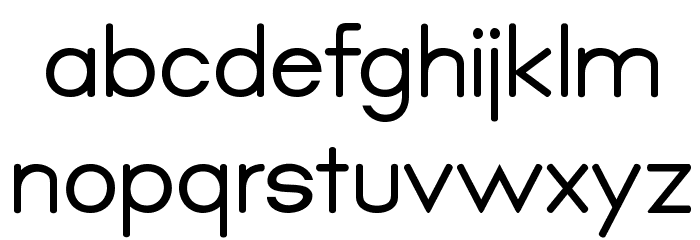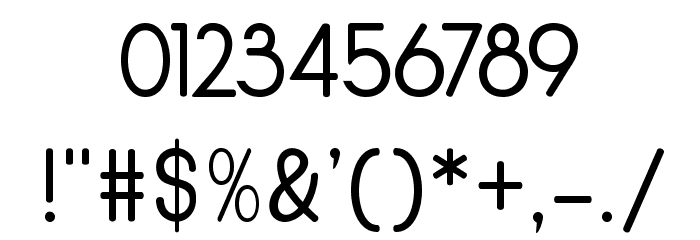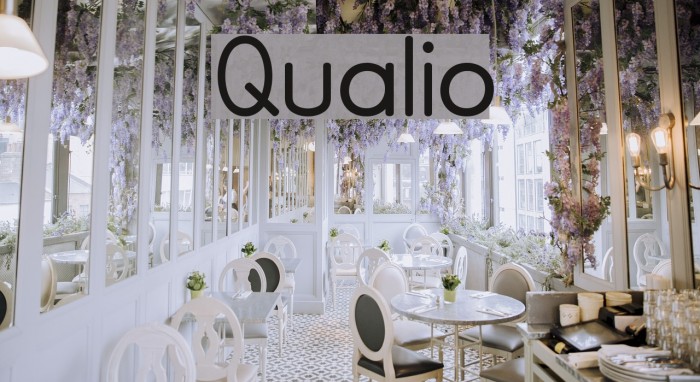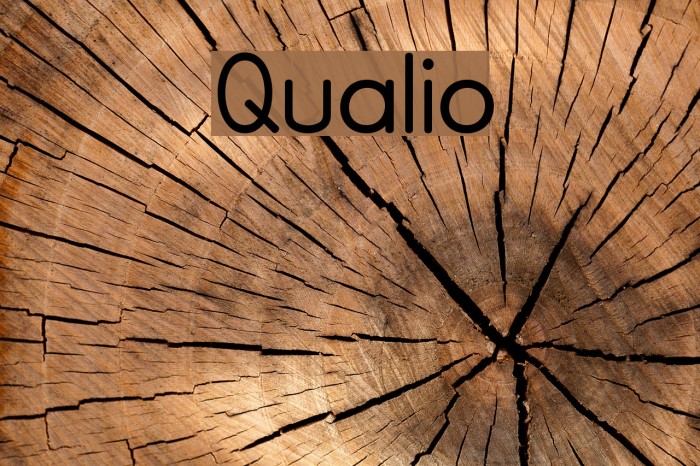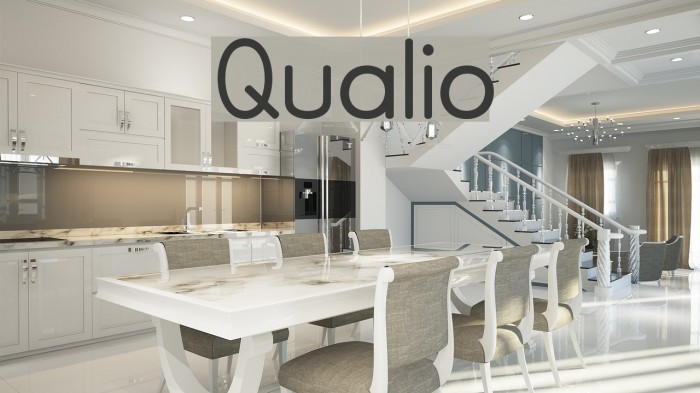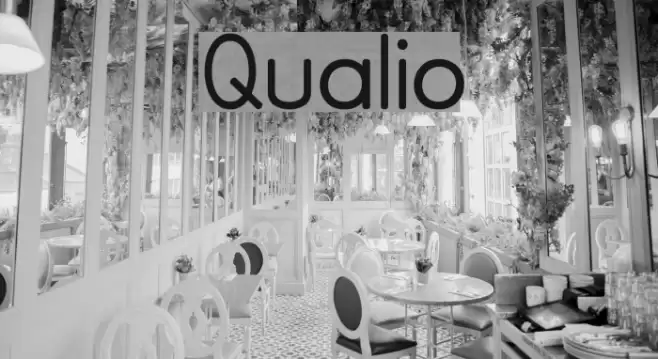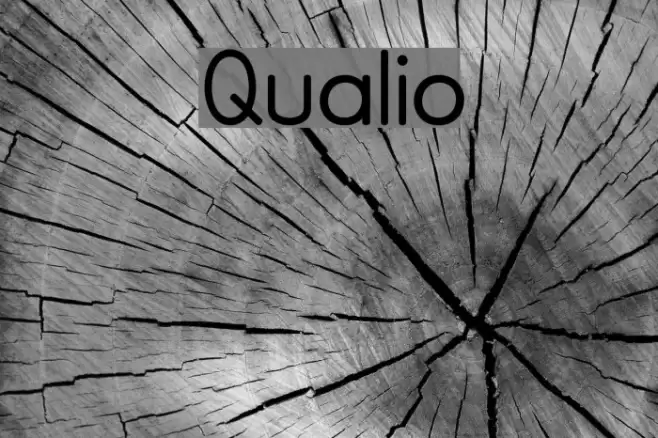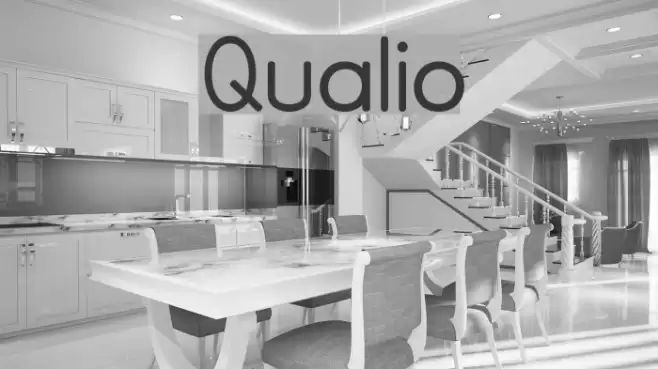
Qualio Font
This font features a clean and modern sans-serif design with rounded edges, giving it a friendly and approachable appearance. The characters are evenly spaced, contributing to excellent readability. The uppercase and lowercase letters maintain a consistent style, with smooth curves and a uniform stroke width. The numerals are clear and distinct, matching the overall aesthetic of the alphabet. Special characters are well-integrated, maintaining the font's cohesive look. This typeface is versatile, suitable for both digital and print media, and can be used in various design contexts.
A modern sans-serif font with rounded edges and uniform stroke width.
- Proposed Projects: Ideal for branding, web design, user interfaces, and print materials.